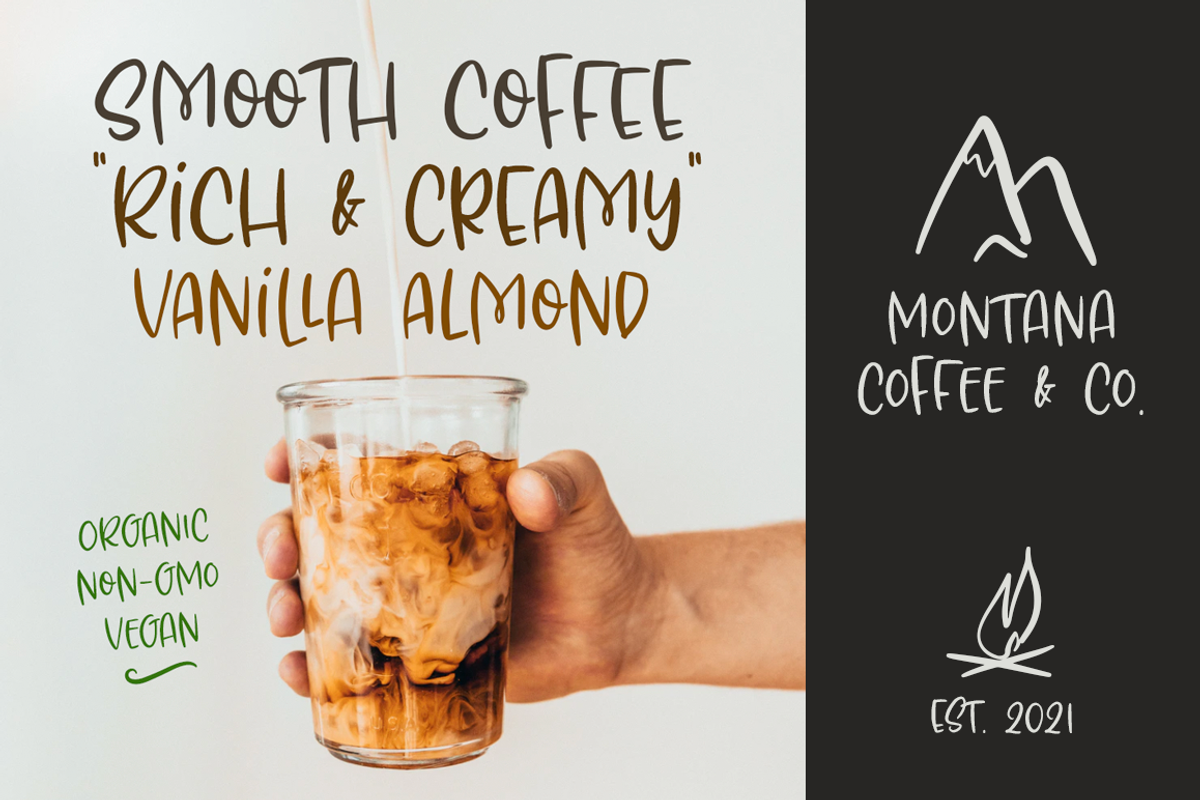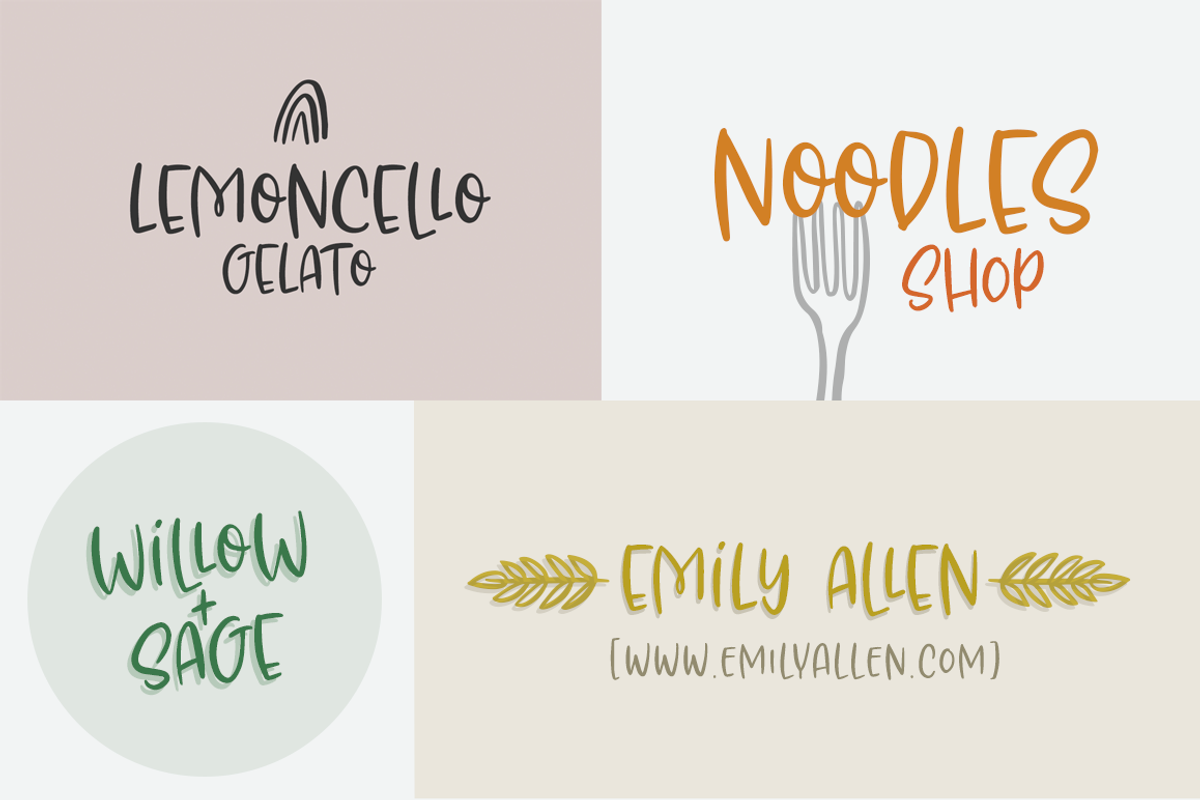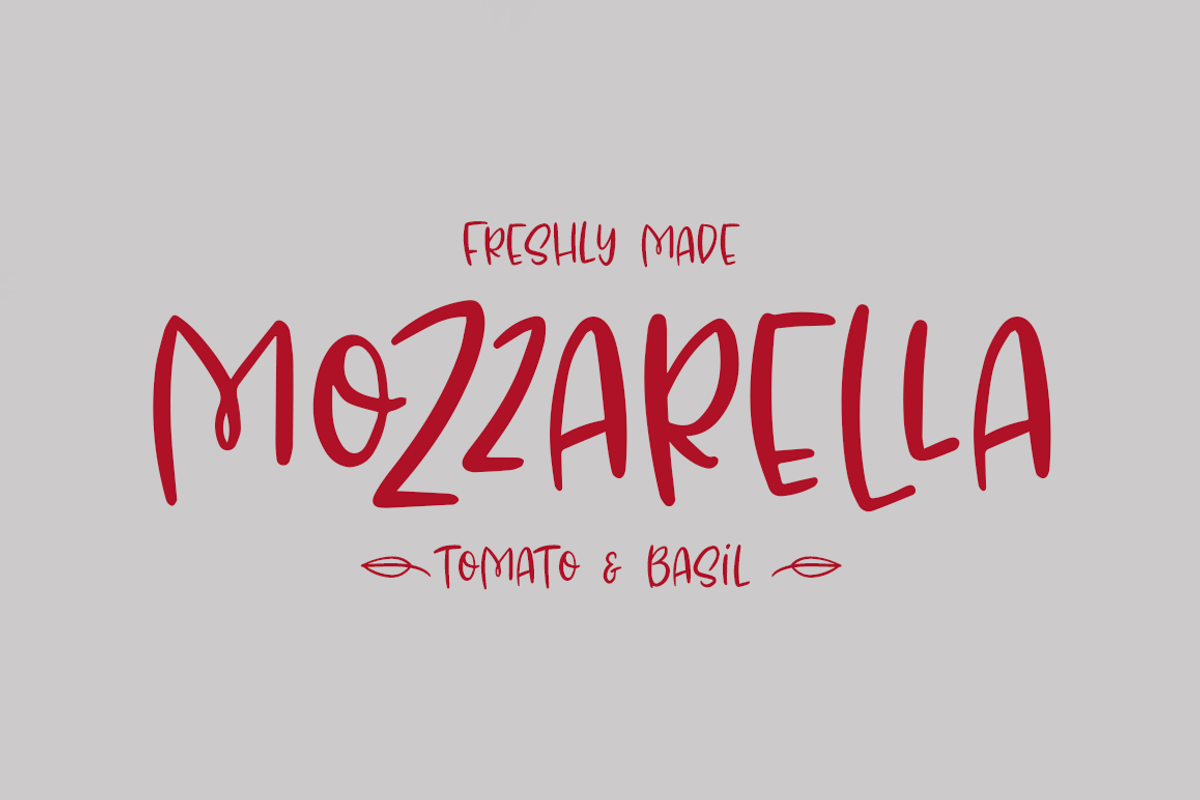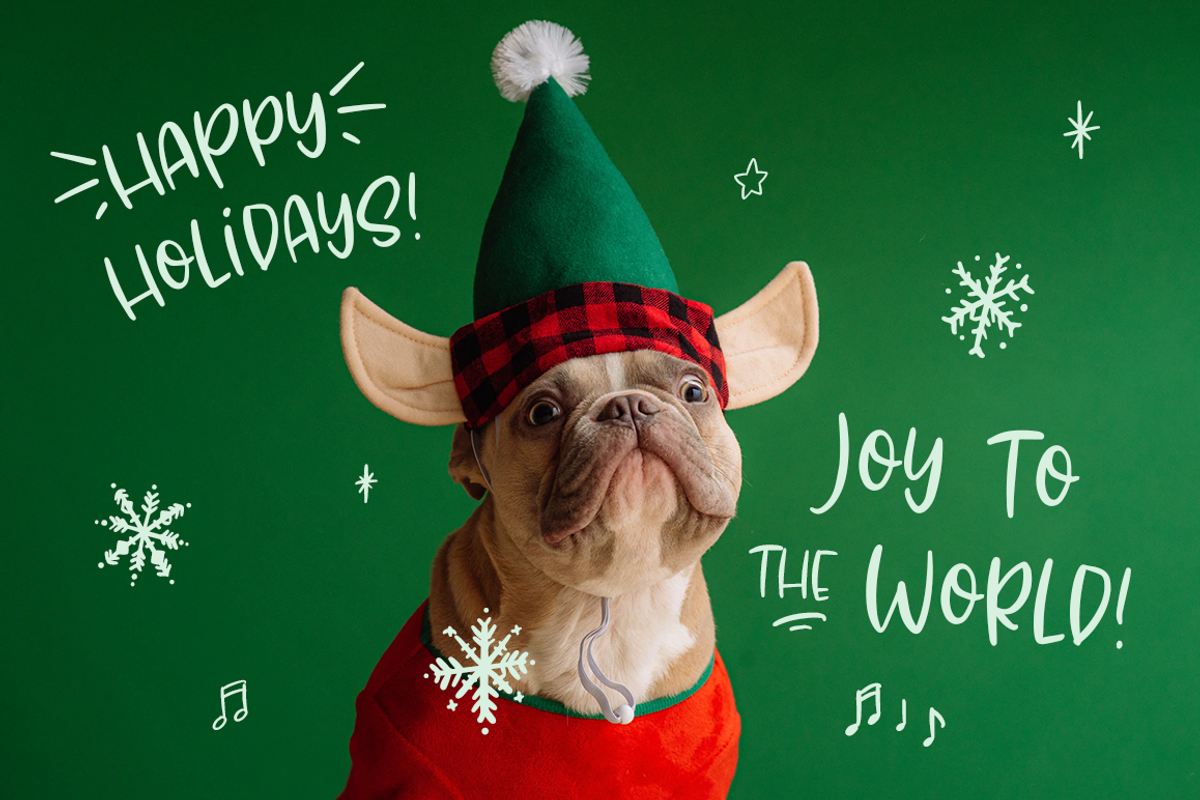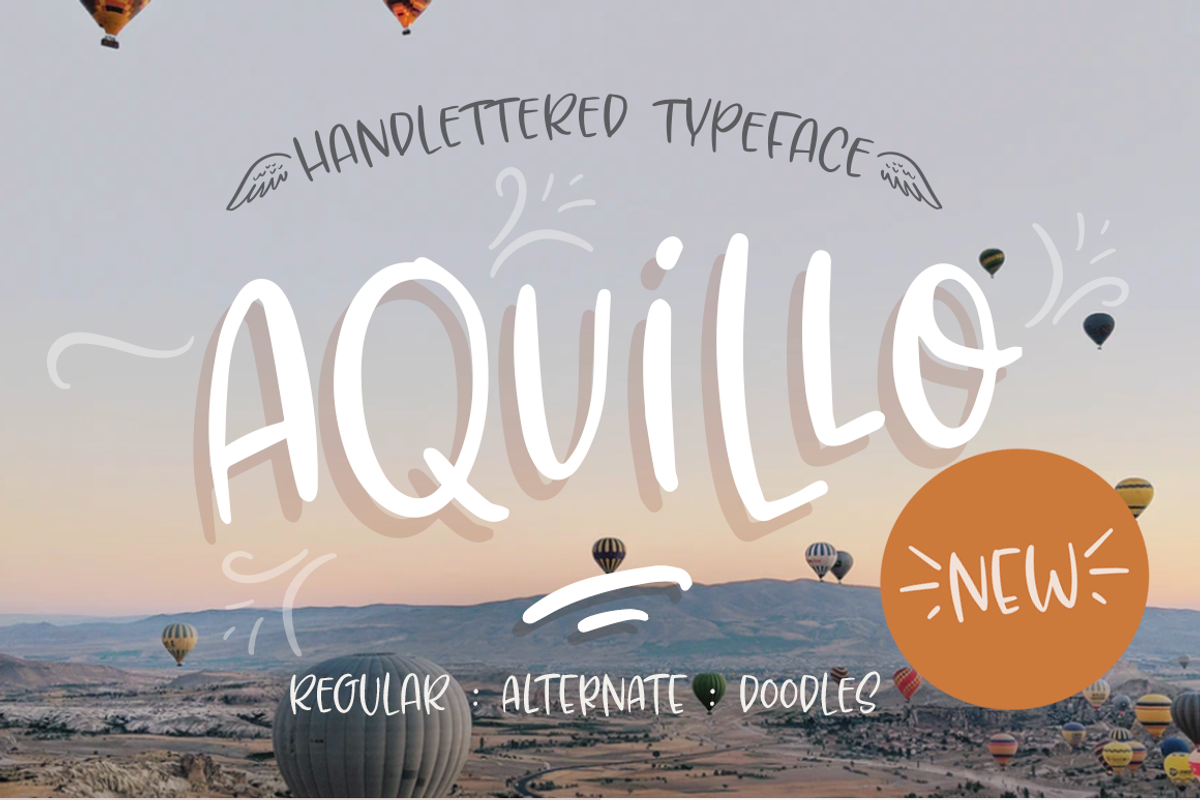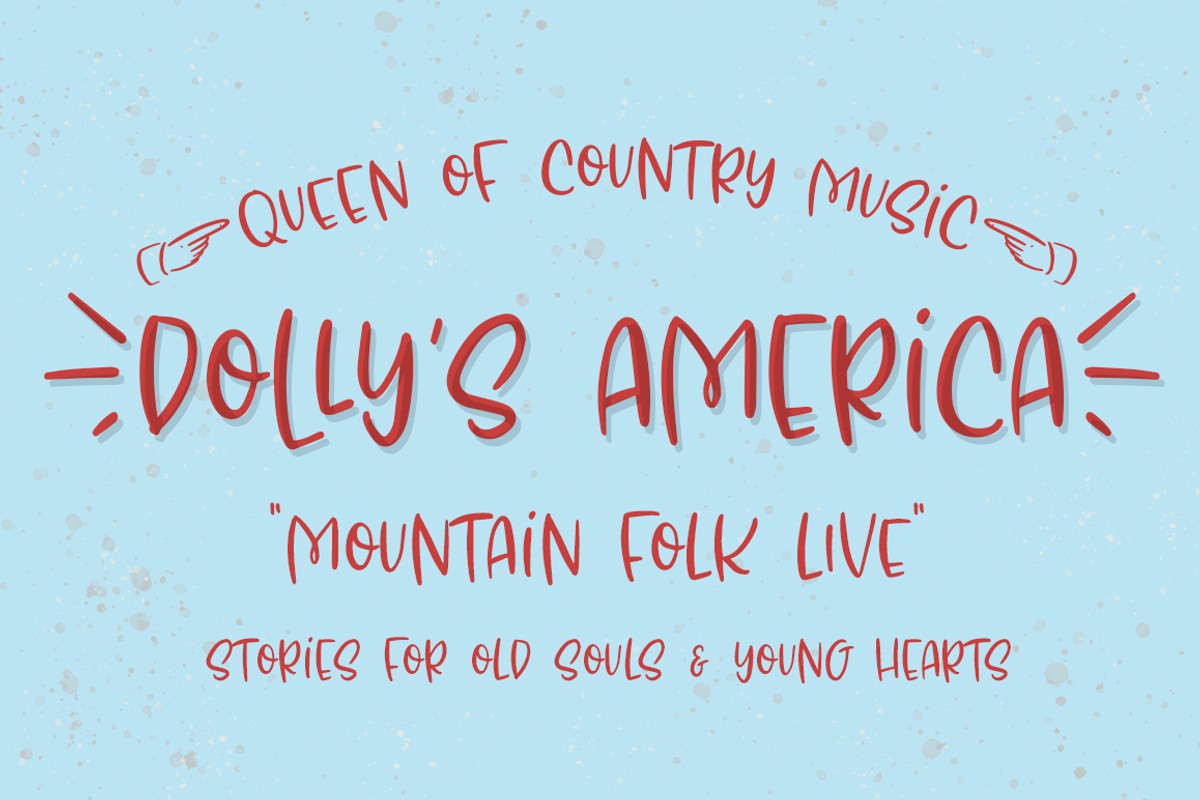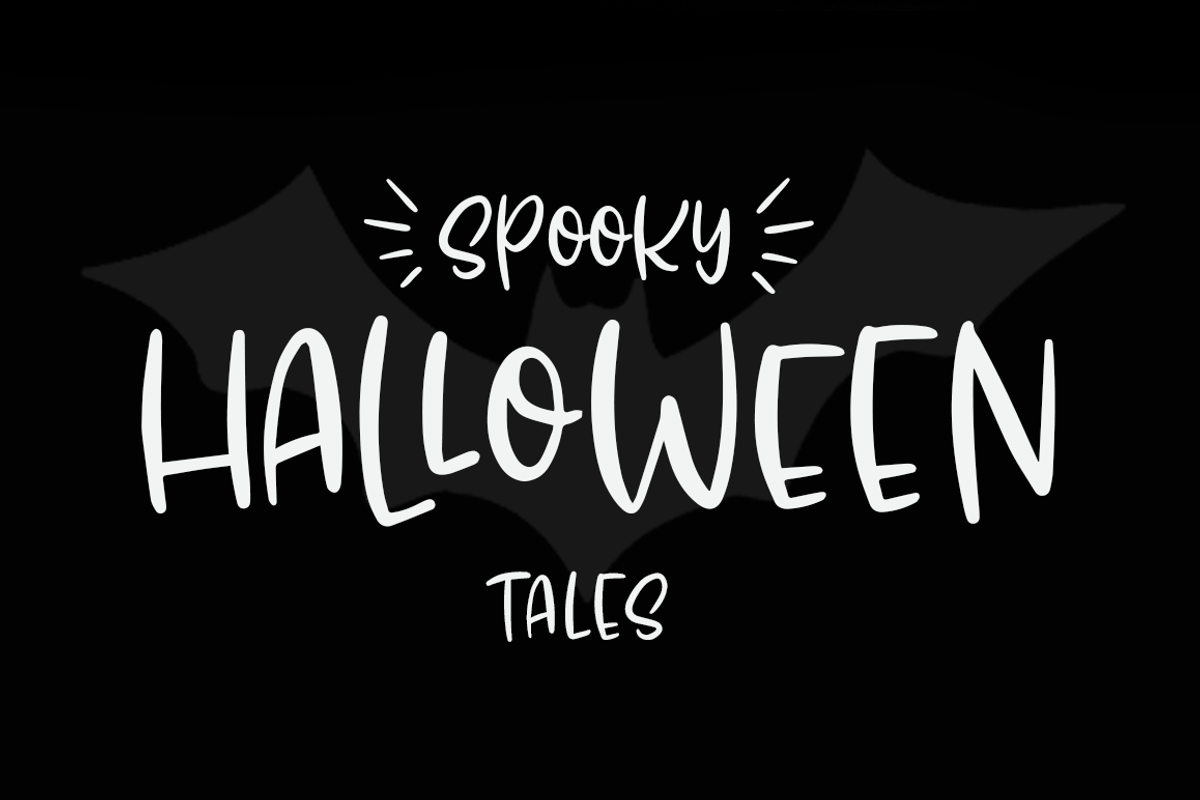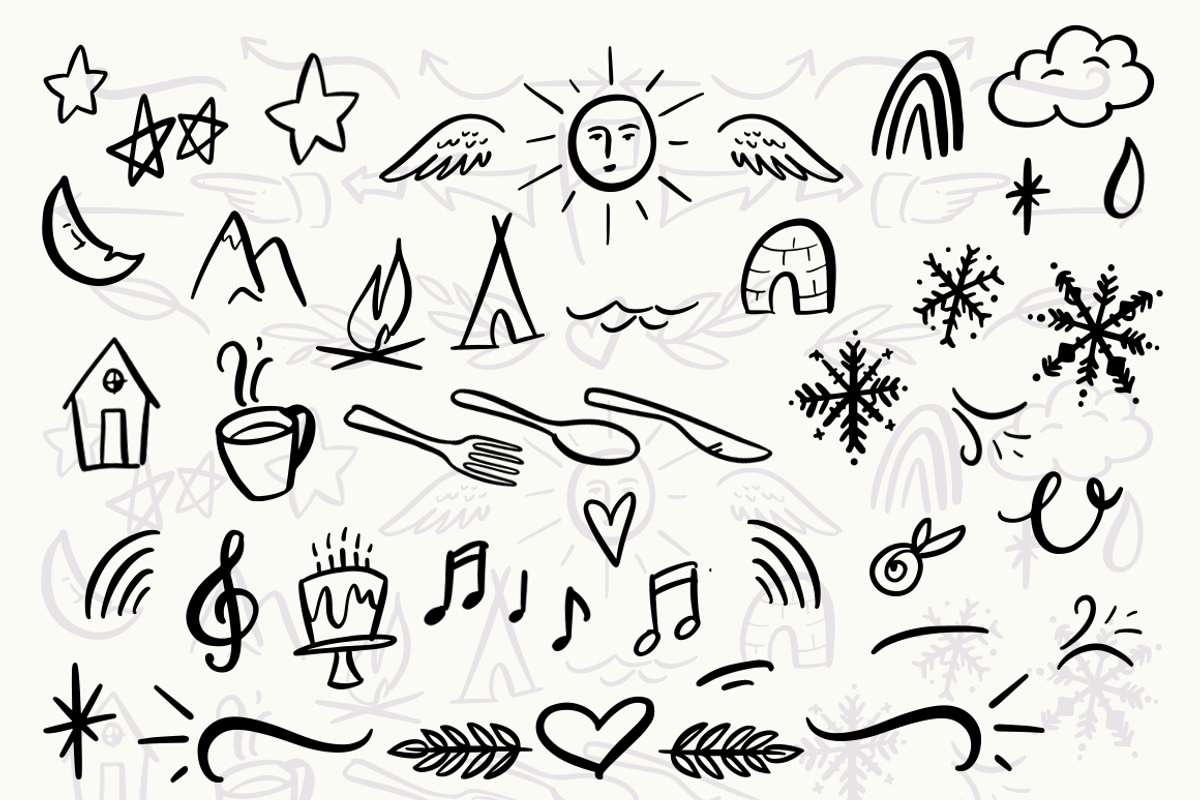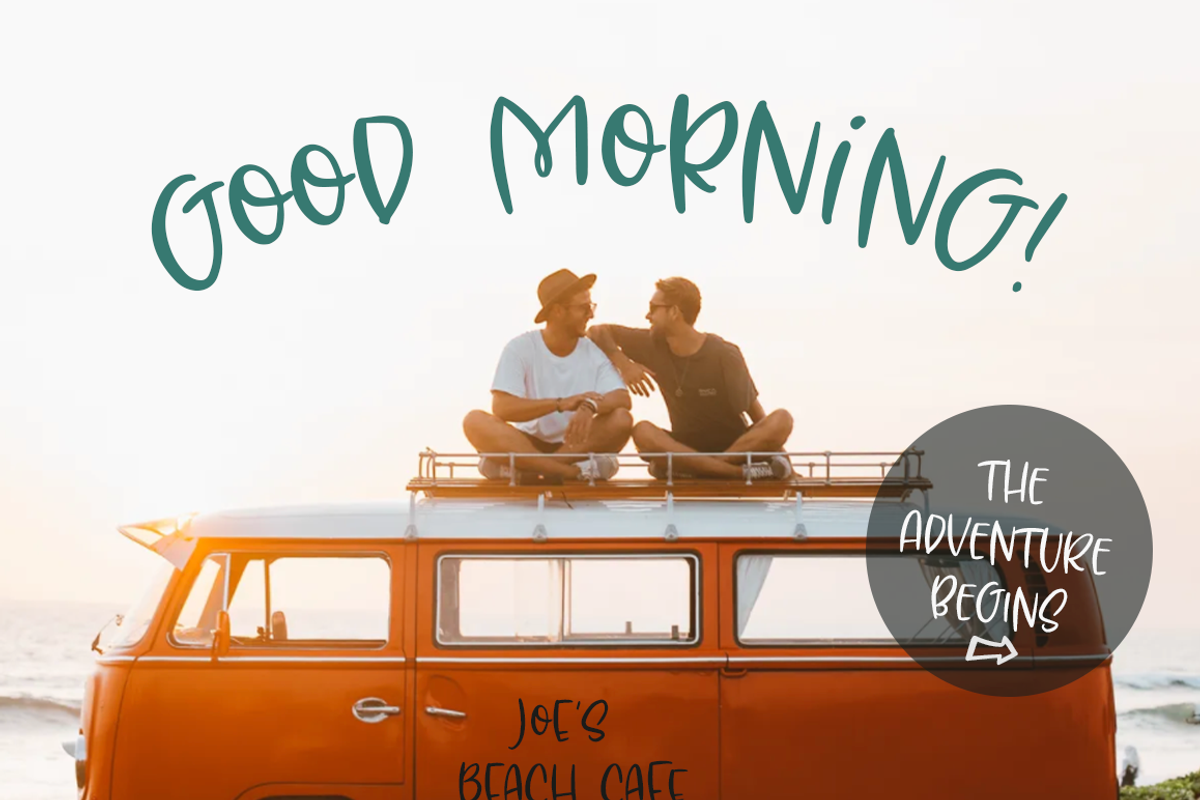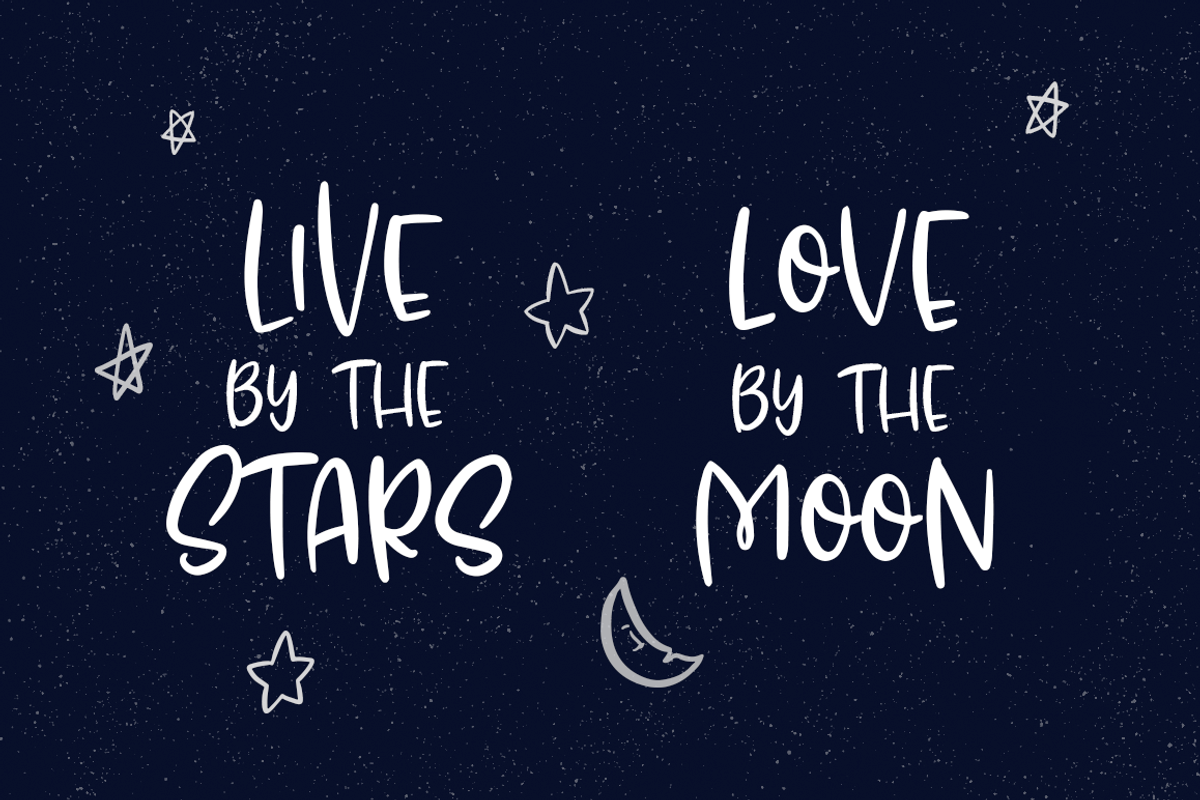
Aquillo
Aquillo (named after the Roman God of the Wind) is a handdrawn brush typeface replicating natural lettering with all it's beauty & quirks. Think fun in the sun, outdoor adventures and good vibes. It includes 3 fonts, one regular and one alternate with a little more personality plus 72 doodle dingbats.
Both fonts include a full collection of alternate glyphs so you can customize their appearance. Designed with standard and discretionary ligatures.
A perfect choice for posters, signage, logo designs, packaging, advertising and of course stationery & maps.